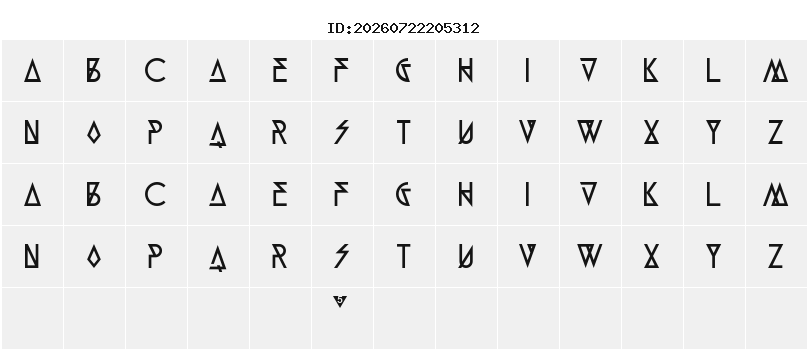
Munk5 Black Preview
About Munk5 Black.ttf
Munk5 Black.ttf is a modern, elegant sans-serif font designed for ultimate readability and visual harmony. Perfect for branding, headlines, web design, and print materials.